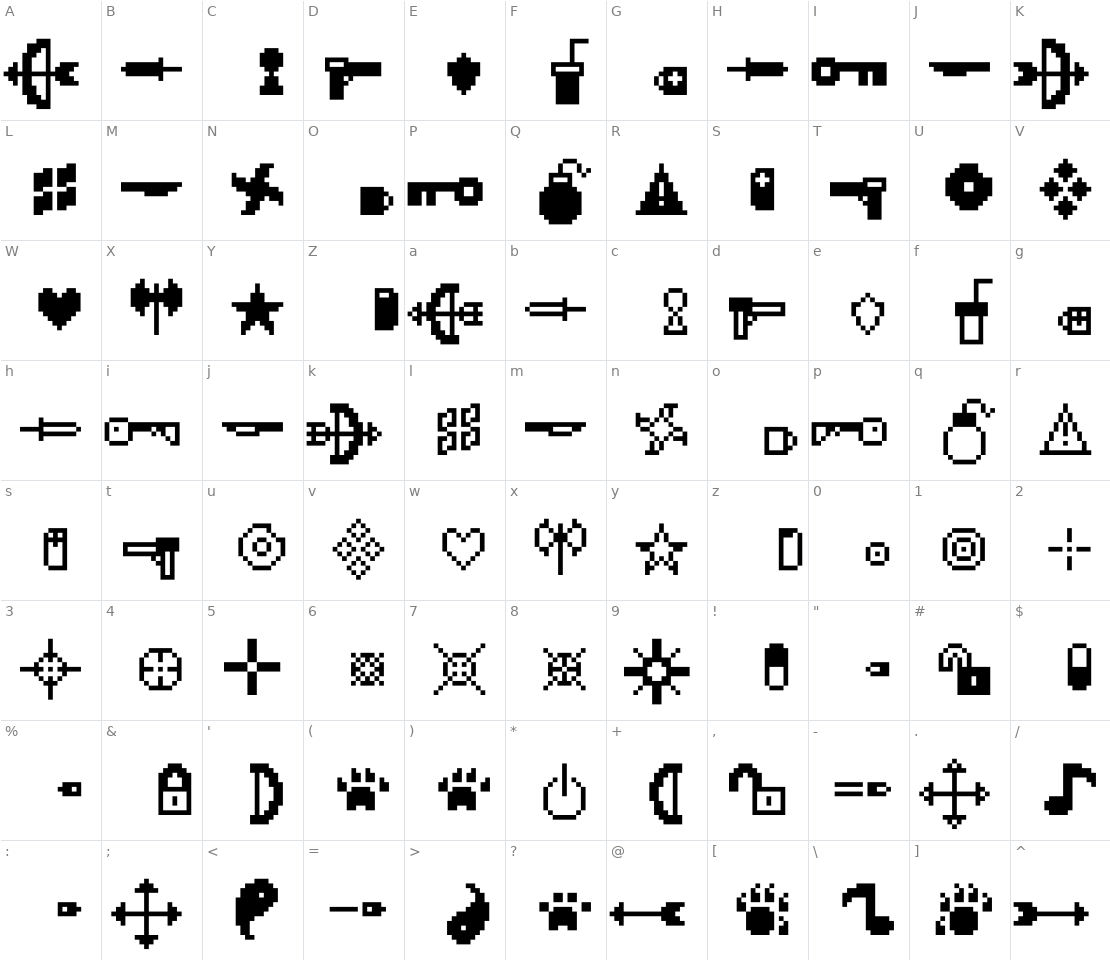
Wolve Symbol
by w01v35w0rd
Wolve Symbol is a small-scale pixel icon set from w01v35w0rd, offering geometric symbols and simple pictographs rendered in chunky 8-bit style. The characters read as retro UI elements or mini icons rather than traditional letters, making it useful for decorative accents, game interfaces, or anywhere you need blocky little glyphs with an old-school digital feel.